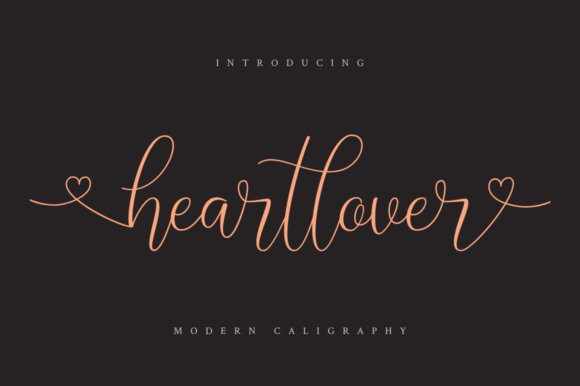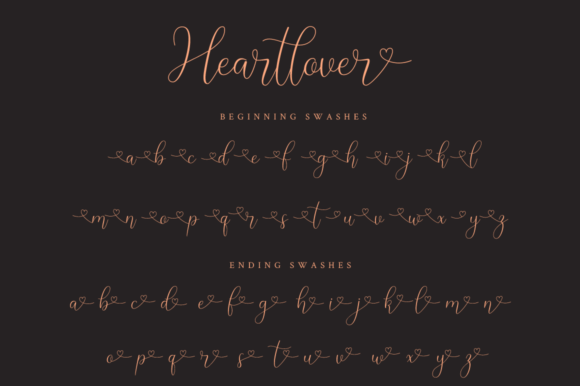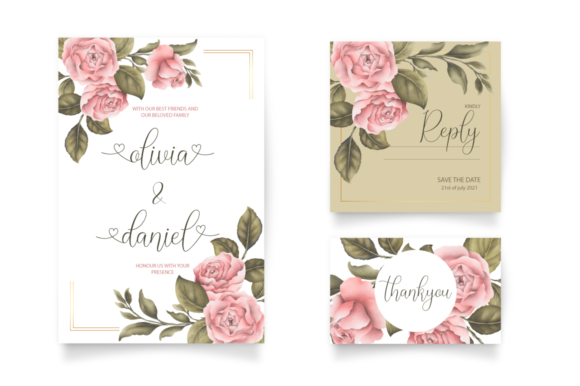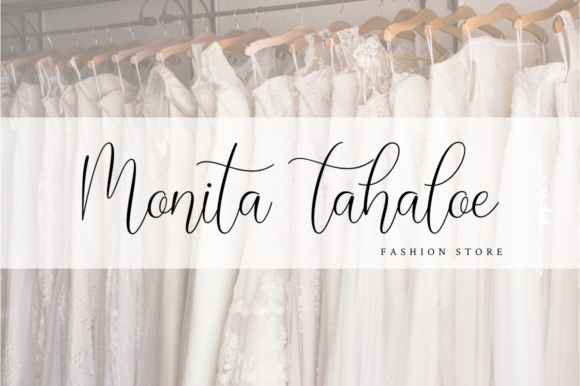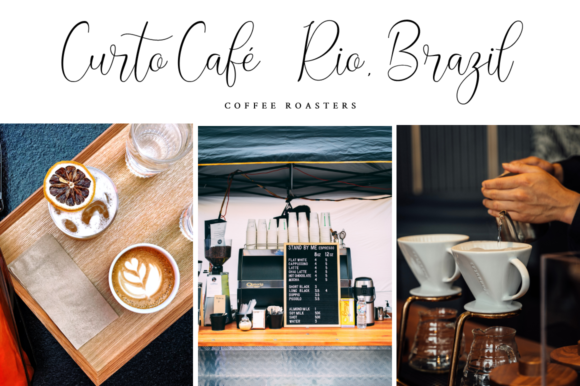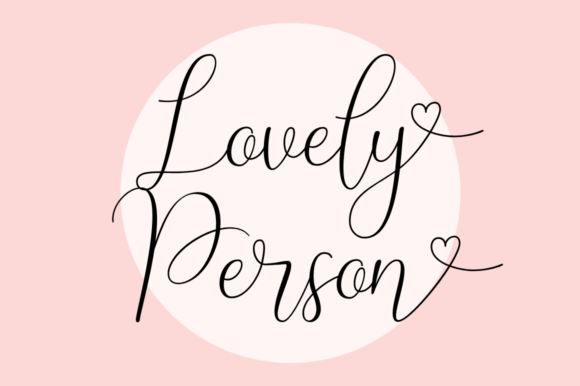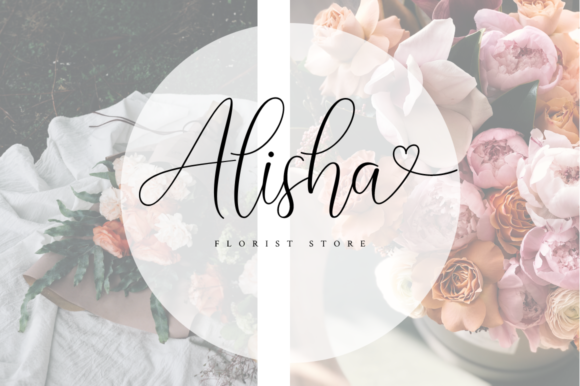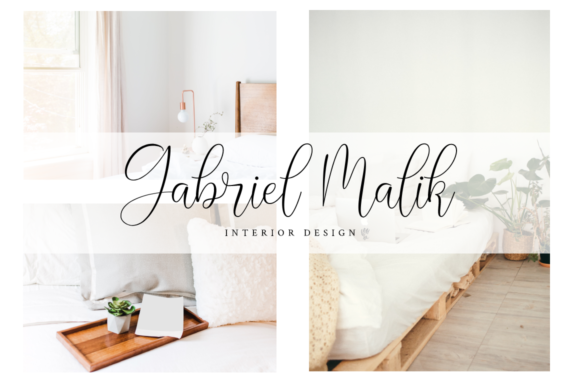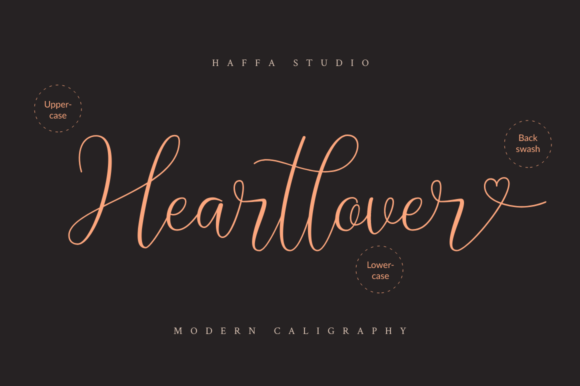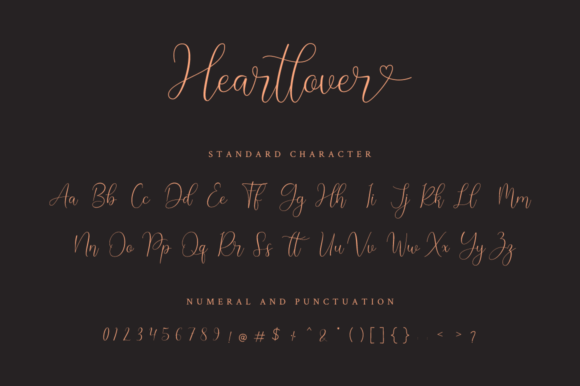
Heartlover Font
About Heartlover Font
Heartlover is a sweet and cute calligraphy font. It features gorgeous swashes and ligatures that make this script incredibly versatile. Fall in love with its authentic feel and use it to create gorgeous wedding invitations, beautiful stationary art, eye-catching social media posts, and cute greeting cards.